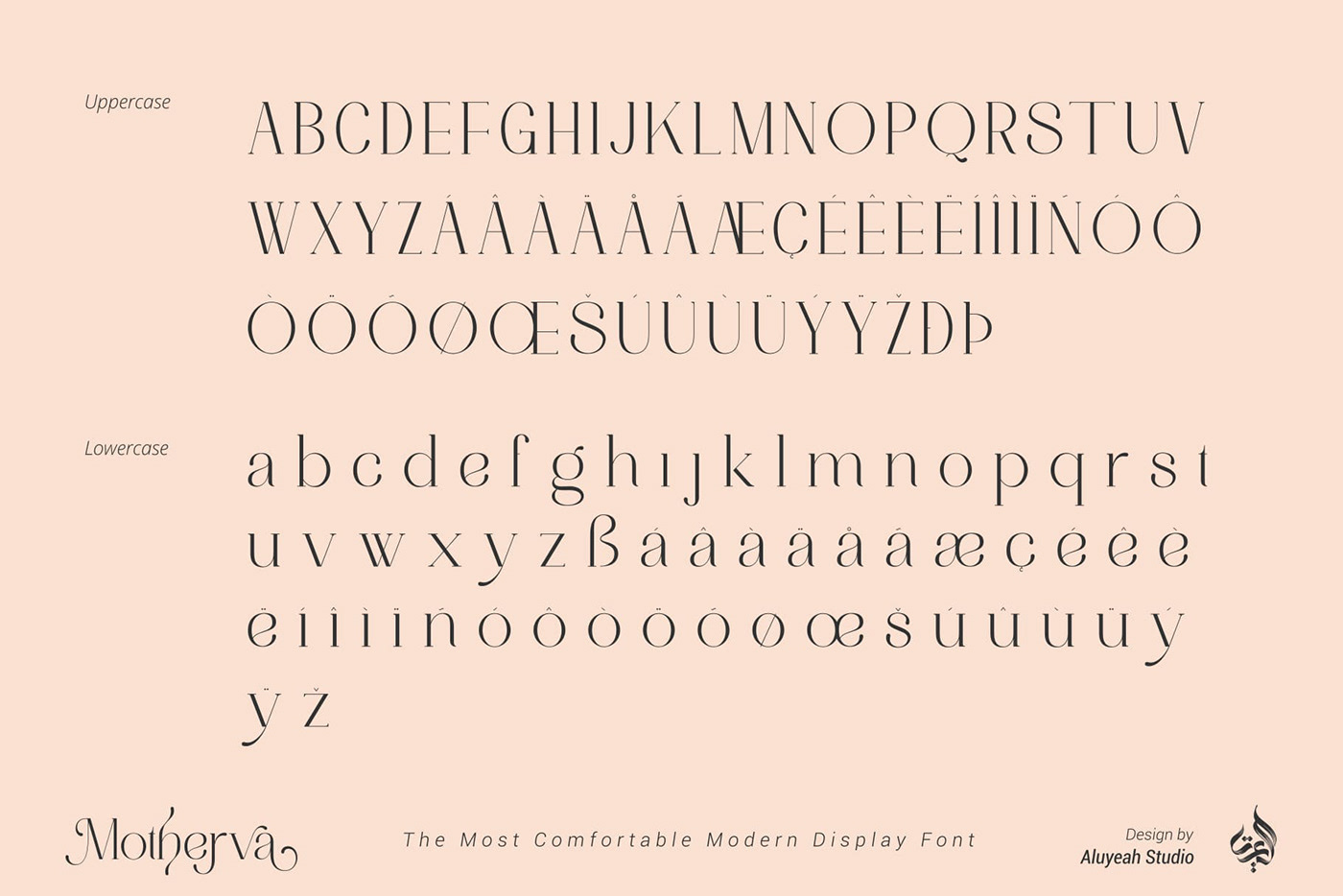
Motherva
Motherva, from Aluyeah Studio, a unique modern display font, with 3 weight styles and 130+ stunning and super easy to use alternates for each weight style. Very suitable for magazines, headlines, websites, ads, product packaging and all types of design projects you may have.